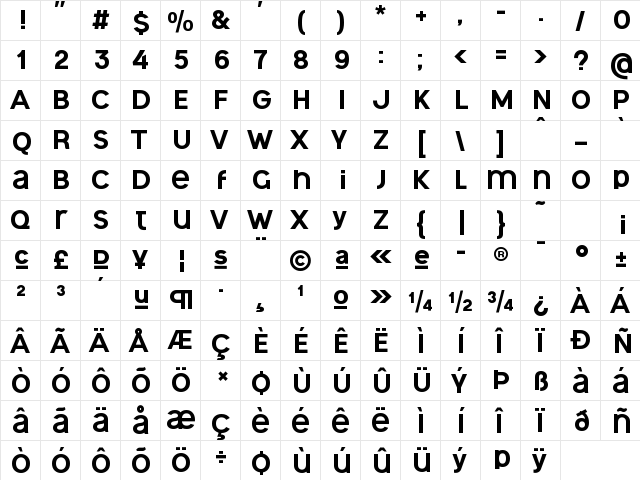
Ogonek Unicase Regular
| Foundry | Levi Szekeres |
| Designer | Levi Szekeres |
Design Context for Ogonek Unicase Typeface
Ogonek Unicase offers clean, dependable letterforms without strong stylistic allegiance, making it a practical choice for designers who need flexibility.